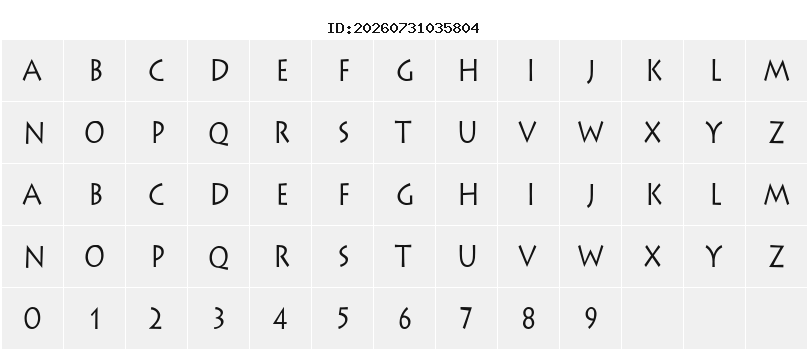
• Font Name: Liste Condensed
Liste Condensed.ttf is a modern, elegant sans-serif font designed for ultimate readability and visual harmony. Perfect for branding, headlines, web design, and print materials.